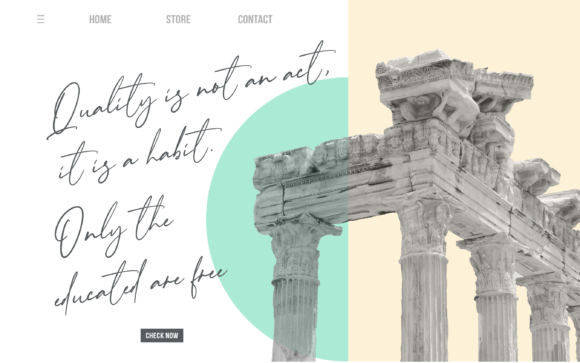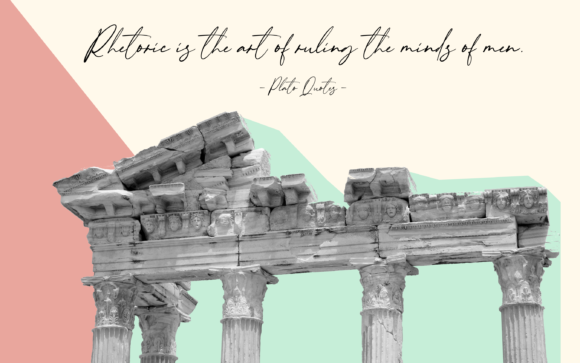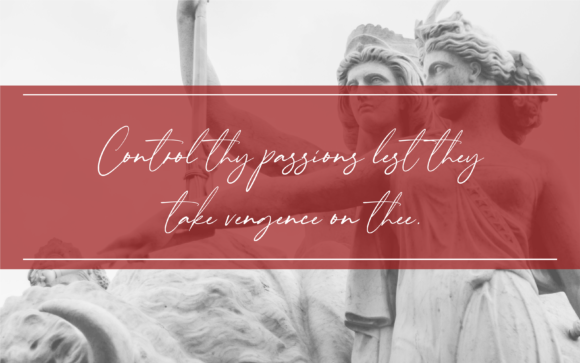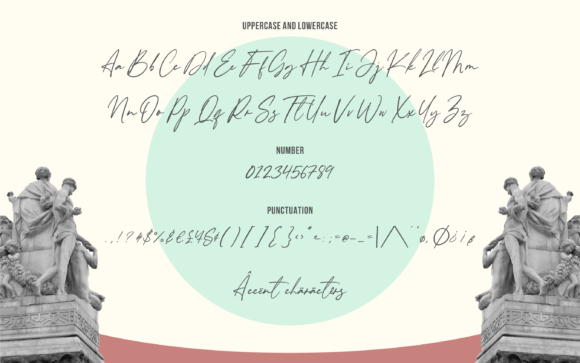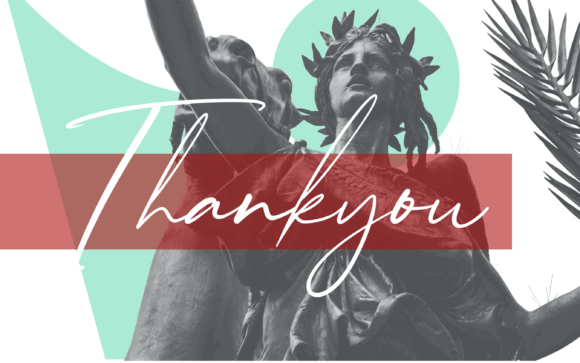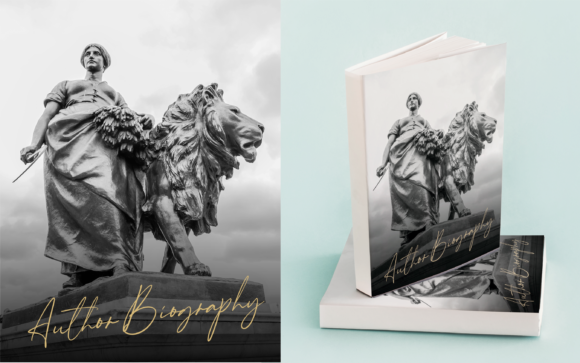
The Perfect Pen Stroke: Unveiling Almondita Font
There’s nothing quite like the thrill of bringing a design to life. The moment when your vision starts to take shape, and the words begin to flow – it’s pure magic. For designers, this moment is what drives us to keep pushing the boundaries of creativity. And what better way to elevate your designs than with a stunning handwritten font that exudes elegance and sophistication?
Meet Almondita Font, a charming and versatile font that pays homage to classic calligraphy. With its varying baseline, smooth lines, and gorgeous glyphs, Almondita Font is the perfect addition to any designer’s toolkit. Whether you’re working on a high-end brand identity or a whimsical wedding invitation, Almondita Font is sure to bring a touch of sophistication and charm to your designs.
Almondita Font Key Features
- Font Family: Almondita
- Unique Characteristics: Almondita is a modern, elegant script font with a touch of whimsy and romance, featuring flowing connections and subtle flourishes.
Review of Almondita Font
Almondita Font caught my attention with its unique blend of modern and traditional elements. ✨ I appreciate how the font family has a distinct personality that can add a touch of elegance to various designs. The font’s versatility is a major plus, as it can be used for both body text and headings. The font’s lines are smooth, making it a great choice for digital interfaces.
However, there are some limitations to consider. ⚠️ One of the main issues I noticed is the font’s readability at smaller font sizes. While it’s not a deal-breaker, it’s essential to ensure that the font remains legible, especially for users with visual impairments. Additionally, the font’s design may not be suitable for highly technical or informative content, as it may appear too decorative.
Here are some pros and cons of the Almondita Font:
- ✨ Unique blend of modern and traditional elements
- ✨ Versatile font family suitable for various design applications
- ✨ Smooth lines for digital interfaces
- ⚠️ Limited readability at smaller font sizes
- ⚠️ May not be suitable for highly technical or informative content
Overall, Almondita Font is a beautiful addition to any design arsenal. While it may have some limitations, its unique personality and versatility make it a great choice for designers looking to add a touch of elegance to their projects.
Getting the Most Out of Almondita Font
For optimal results, use Almondita Font in combination with elegant and minimalist designs. It pairs well with light backgrounds and bold colors. Experiment with different font sizes and styles to create visual interest.
Almondita Font is ideal for:
- Brand logos and identity
- Printable art and quotes
- Web design and digital products